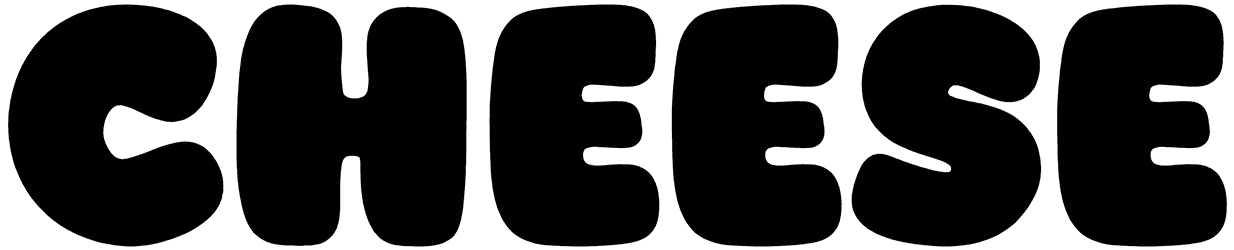
Cheese Font
Cheese can always be a boost of cuteness for your typography with its fat letters and round style. Just make sure you won’t be needing any numbers or lowercase letters in your next text design, and you can consider using this lovely food font.
There’s something so sweet about donut fonts like this that makes them perfect for your kids’ storybook titles, baby apparel, tasty snack packaging, and other fun designs that you want to turn into something unforgettable.